Old English fonts, often referred to as blackletter or Gothic script, have a rich history dating back to the medieval period. Originating in the 12th century, these typefaces were primarily used for manuscripts and early printed books in Western Europe. Their intricate and decorative letters were designed to copy the calligraphic handwriting of the time, characterized by dense, angular strokes and wide swashes.
The first typeface was of the blackletter variety used by Johannes Gutenberg on the first printing presses beginning in 1440. This typeface design was created to replicate the calligraphic handwriting used by monks to hand-write manuscripts before the invention of the printing press.
In contemporary design, Old English fonts are experiencing a resurgence, appreciated for their ability to convey a sense of tradition, authority, and timeless elegance. They are employed in a variety of mediums, from event invitations and branding to music album covers and tattoos, adding a distinctive and historical touch to modern creations.
While many designers are familiar with popular Old English typefaces, there are plenty of lesser-known fonts that offer unique interpretations of this classic style. Discovering these hidden gems can bring new inspiration and a distinctive edge to your design projects.
In this article, we’ll learn about 20 such lesser-known Old English fonts that can enhance your creative endeavours, blending historical charm with modern design needs.
Understanding Old English Fonts and Their Applications
Old English fonts, also known as blackletter or gothic script, originated in Western Europe around the 12th century and were prevalent until the 17th century. Characterized by their dense, angular strokes and wide swashes, these typefaces mimic the calligraphic handwriting of medieval scribes.
In modern design, Old English fonts are versatile and can be used in a variety of contexts. They are commonly seen in newspaper mastheads, legal publications, and qualification certificates, where they convey a sense of tradition and authority. Additionally, these fonts are popular in greeting cards, flyer designs, and even heavy metal or death metal album covers, adding a formal, hand-written or engraved look.
Their distinctive appearance makes them suitable for projects intended to evoke a vintage or classical feel, such as logos, posters, signage, book covers, and labels.
However, it’s important to use Old English fonts thoughtfully, as their intricate details can sometimes create readability issues if not properly implemented. Used properly, they can add a distinctly vintage or classical feel to design projects, making them a valuable tool in a designer’s collection.
20 Lesser-Known Old English Fonts That Inspire Creativity
1. CS Chalise
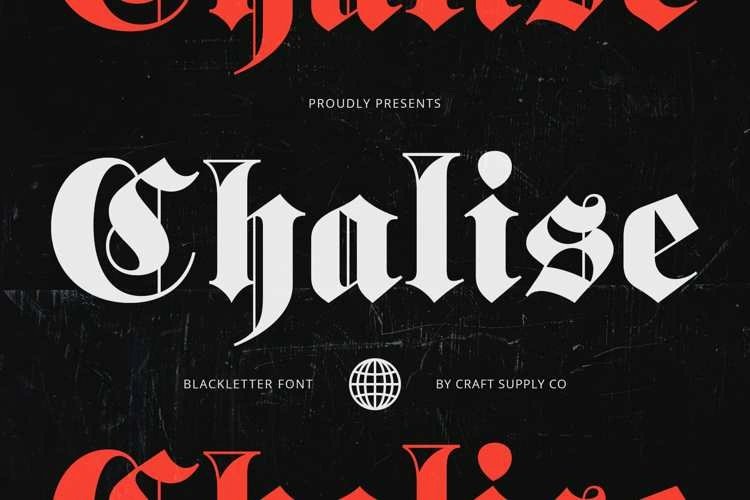
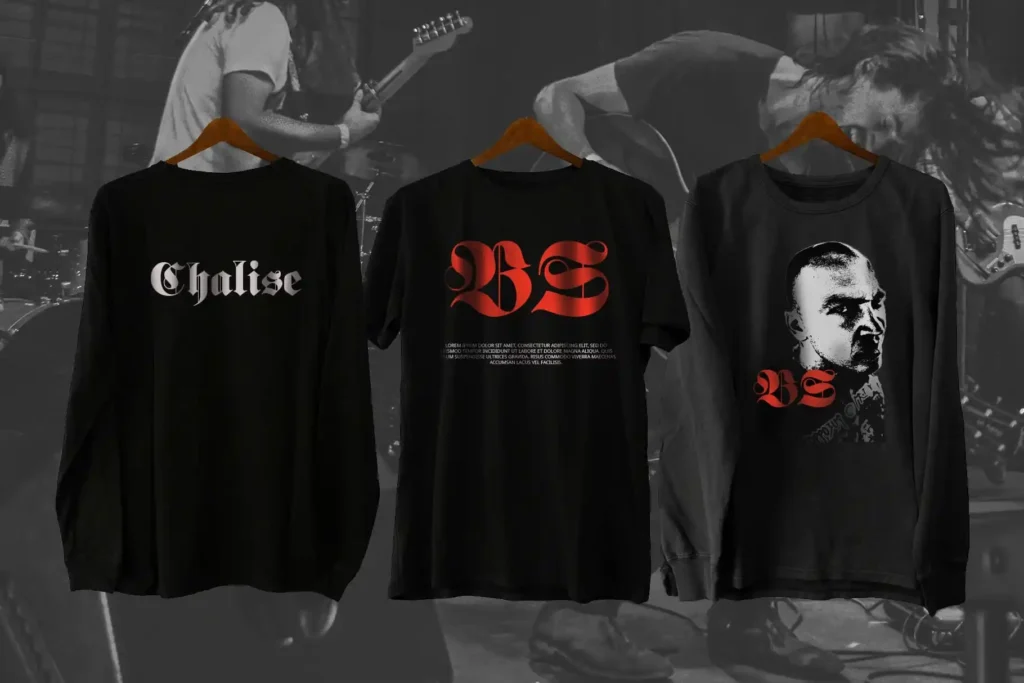
CS Chalise is a striking display serif font that embraces the rich tradition of blackletter typography. This font features intricate details and a rich, antique aesthetic, infusing your designs with a sense of classical elegance and dramatic flair. With its serrated letterforms and geometric shapes, CS Chalise creates a historic impression, making it ideal for projects that require a deep and striking visual presence.
Its unique style enhances various design applications, from elegant invitations to mysterious book covers and t-shirt prints providing a sophisticated and timeless look. Perfect for adding a touch of history and drama to your creative works, the CS Chalise stands out with its detailed design and refined character.
2. Deutsch Gothic
Created by James Fordyce, Deutsch Gothic is a free typeface inspired by traditional German Gothic script. Its sharp, angular lines and historic design make it perfect for projects that have a medieval or old-world feel. This font is particularly effective in designs related to cultural or historic themes, such as event posters for Renaissance fairs, themed restaurant menus, or vintage-style book covers. Its distinctive look can also enhance branding for craft breweries or artisan products, providing an authentic and traditional aesthetic.
3. Blackletter686 BT
Blackletter686 BT is a striking and bold typeface that exudes a sense of midcentury elegance and timelessness. Its intricate and decorative letters are reminiscent of traditional blackletter styles, making it ideal for projects requiring a classic and formal appearance. This font is suitable for use in certificates, diplomas or formal invitations, where a touch of sophistication is desired. Additionally, it can be employed in logo designs for luxury brands or high-end products, conveying a sense of prestige and heritage. Its bold appearance also makes it suitable for headlines in editorial layouts that aim to grab attention with a classic yet impactful style.
4. Old London Font
Old London is a calligraphy-style typeface that draws inspiration from medieval English script. The detailed and decorative lettering evokes a feeling of heritage and tradition, making it perfect for projects that seek to capture a vintage or gothic style. This font is particularly suitable for designing themed event invitations, such as Renaissance fairs or historical reenactments, where an authentic medieval feel is desired. Additionally, Old London can enhance the visual appeal of book covers for historical fiction or fantasy novels, providing a timeless and classic look. It is also effective in creating logos for establishments such as pubs or restaurants that want to convey a traditional English atmosphere. The font is available for free download and can be used on a variety of design platforms.
- Adjust Spacing Carefully: Because of their complex design, Old English fonts may require careful attention to kerning and leading to ensure readability and visual harmony.
- Use for Emphasis: Use the Old English font for headings, quotes, or focal points to grab attention and add a touch of vintage charm to your designs.
By thoughtfully incorporating Old English fonts, you can transform your designs, adding a timeless elegance that resonates with audiences and enhances the overall impact of your projects.